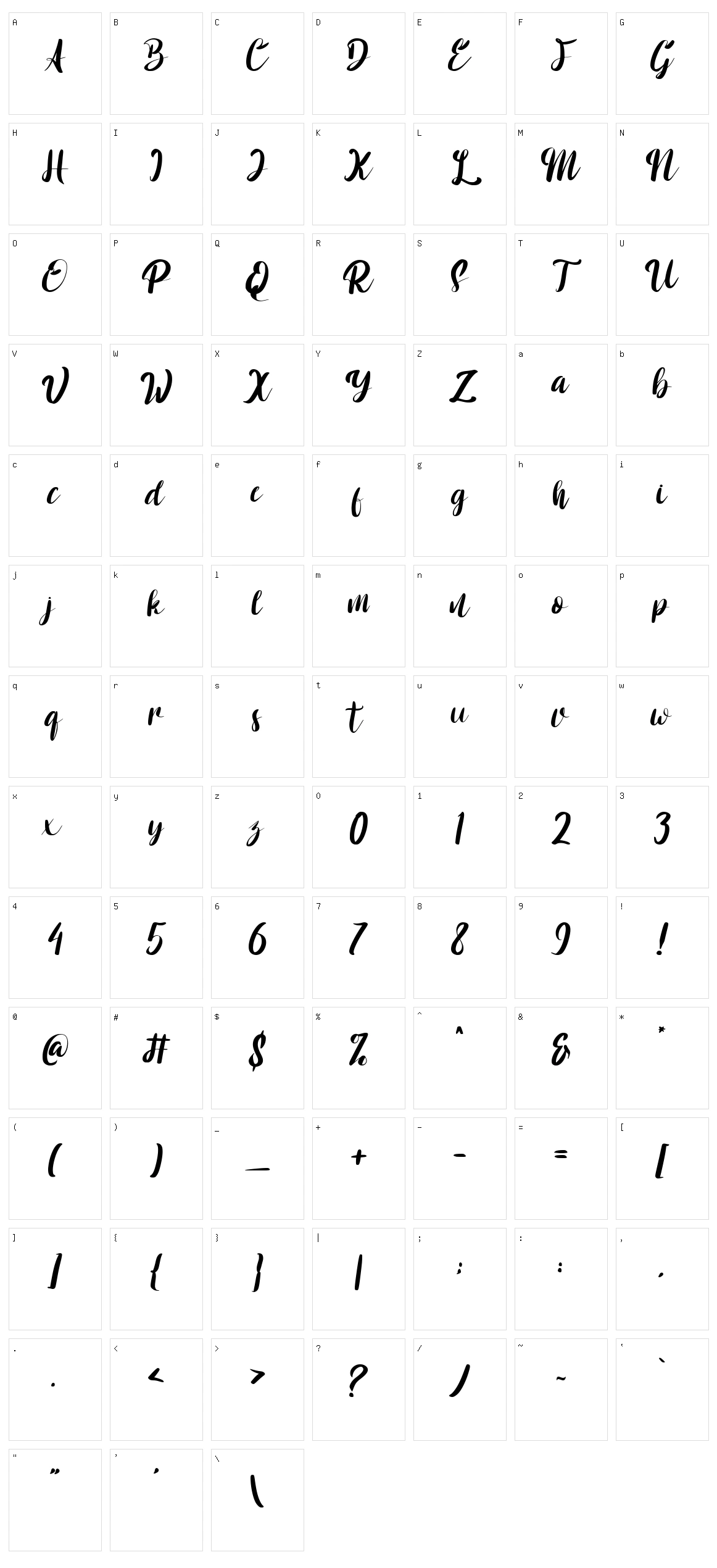
The free font Moonday is carefully designed by Green Adventure Studio, showcasing a thoughtful balance of creativity and usability and falls under the Script font style. When you download the ZIP file, it contains only 132.13 KB of font files, making it lightweight and quick to download. Please review the license details below to understand permitted usage and distribution rights. If license information is not available, we recommend using this font for personal projects only or contacting the author directly for commercial usage permissions.